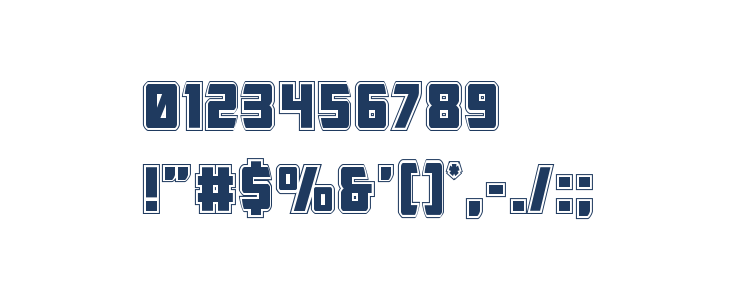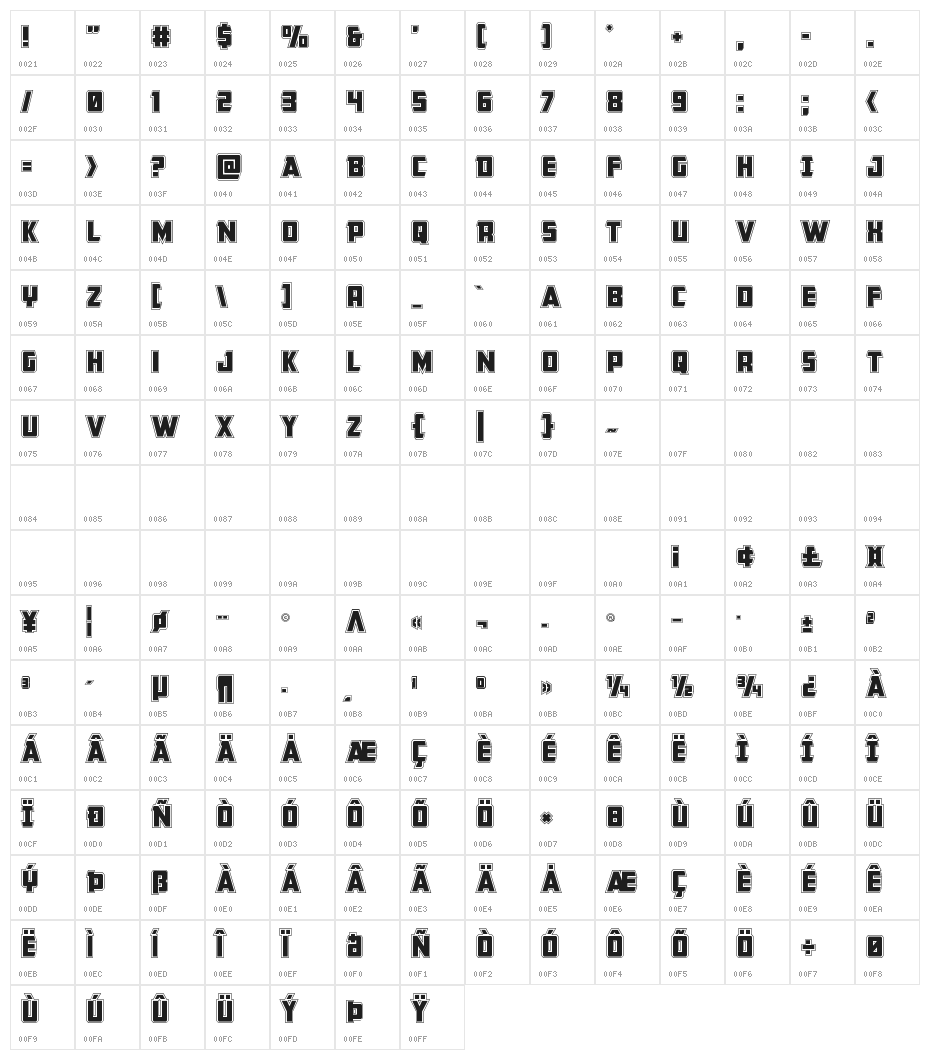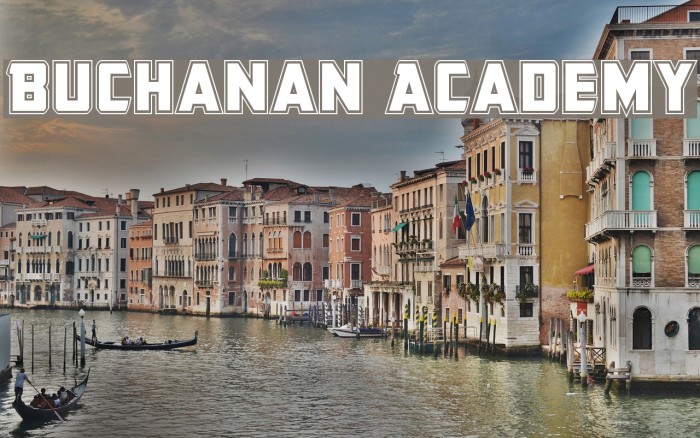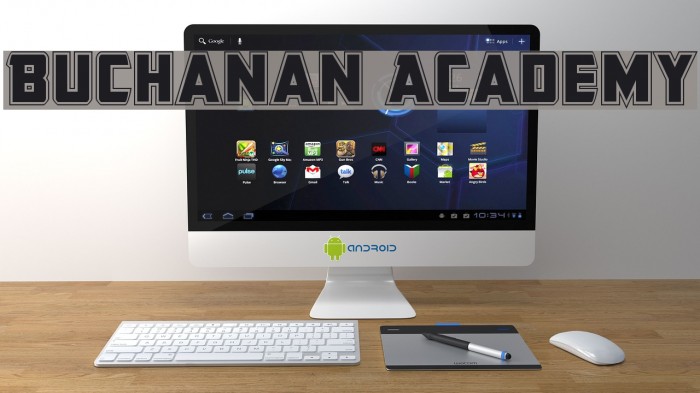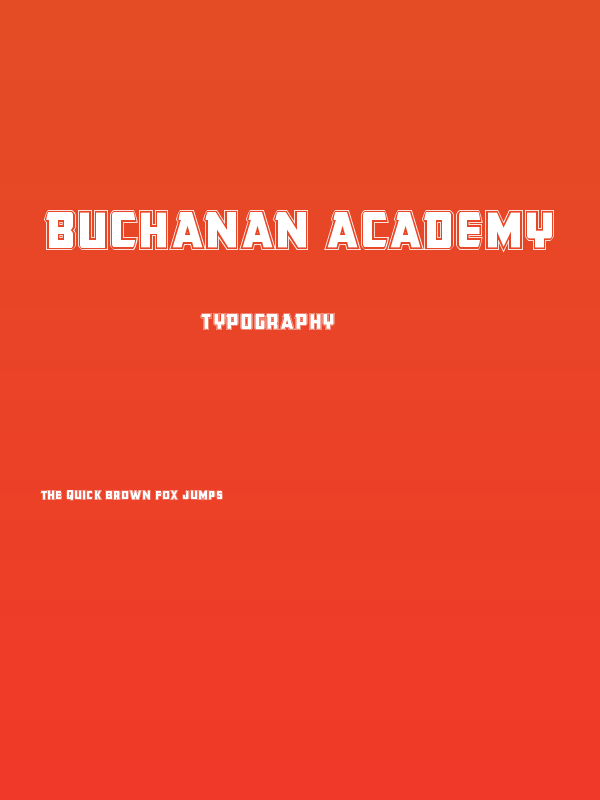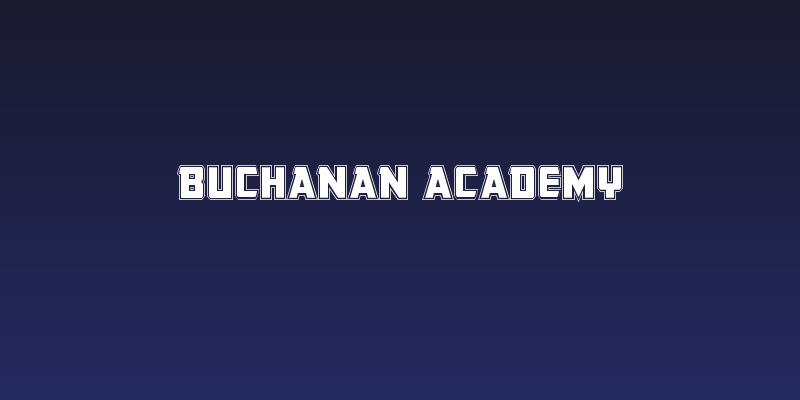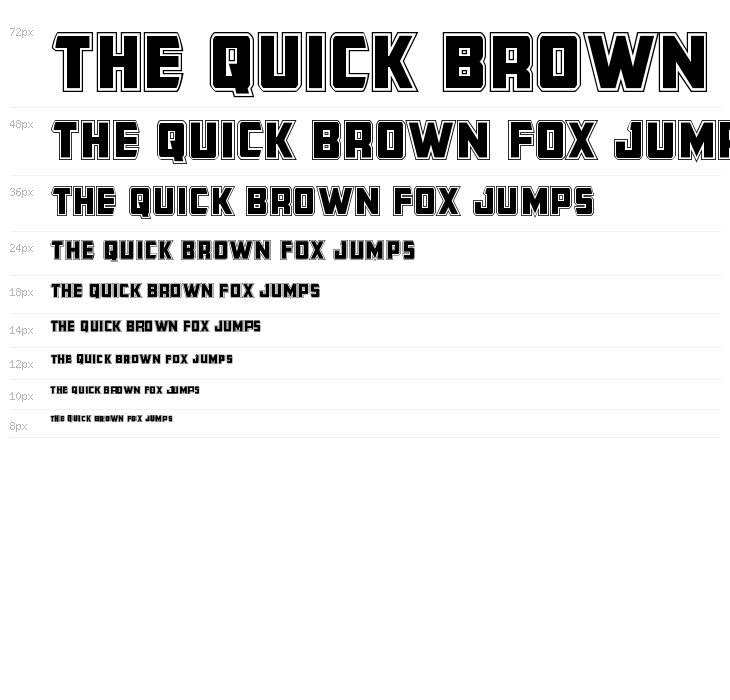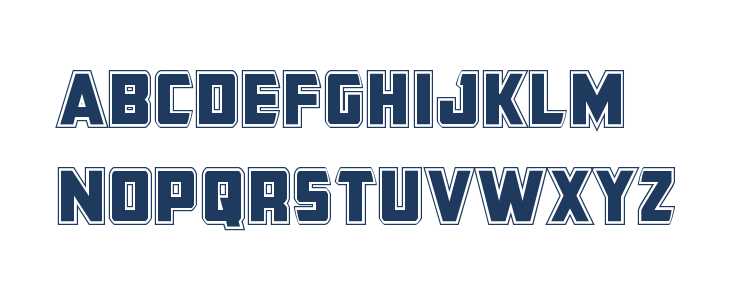
Buchanan Academy Font
Buchanan Academy Description
This font features a bold, geometric style with a strong presence. The characters are outlined, giving them a three-dimensional effect that adds depth and interest. The uppercase letters are uniform in height, with sharp angles and clean lines that convey a sense of strength and modernity. The numbers and special characters maintain the same bold, outlined style, ensuring consistency across all elements. This font is ideal for making a statement, with its eye-catching design and impactful appearance.
| Proposed Projects | Ideal for sports branding, posters, headlines, and any project requiring a strong, impactful typeface. |